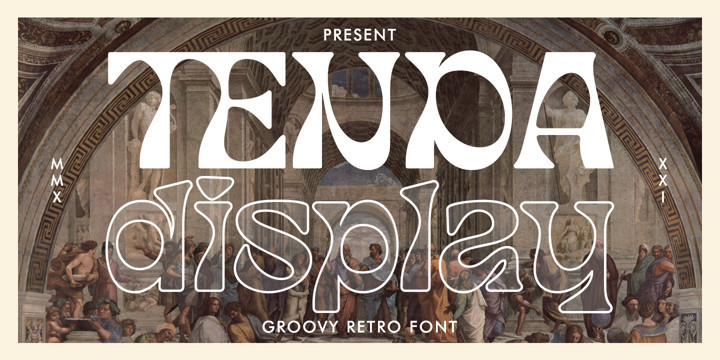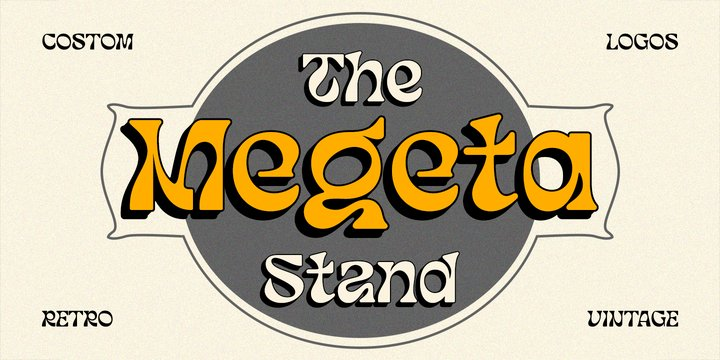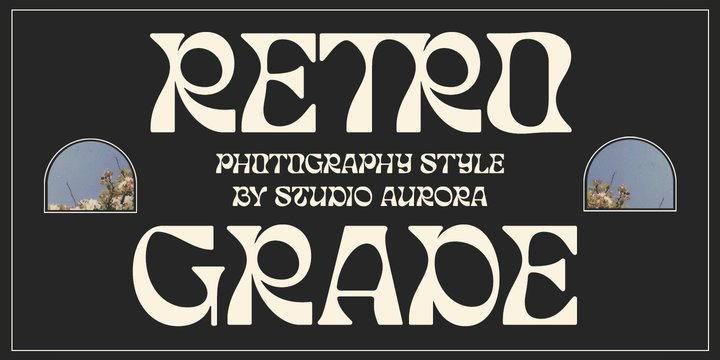
Tenda Display Font Family
Tenda Display Font FamilyTenda Display is a simple font but a whimsical design that comes with a bold emotional character to read. Tenda Display uses the Opentype feature with the intention of multiplying other unique characters such as Alternate letters and Ligatures that suit your project.